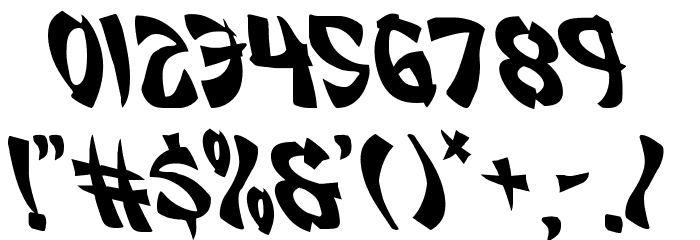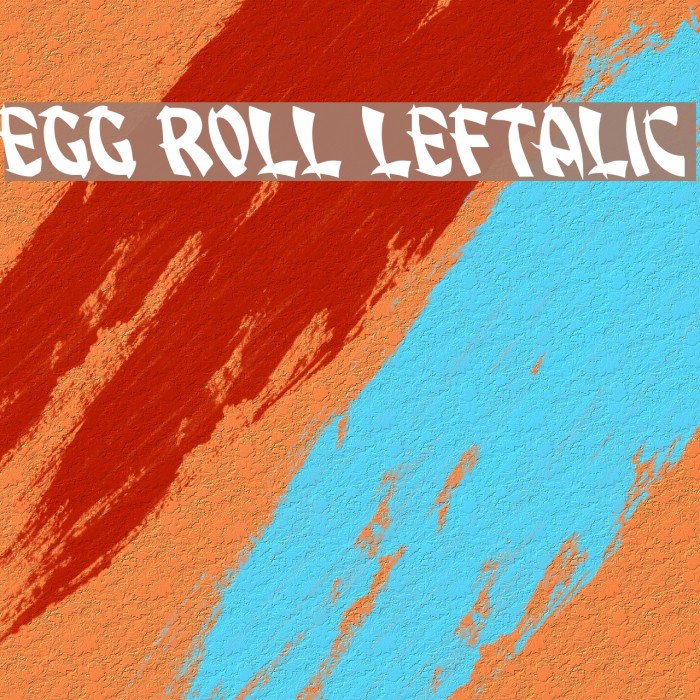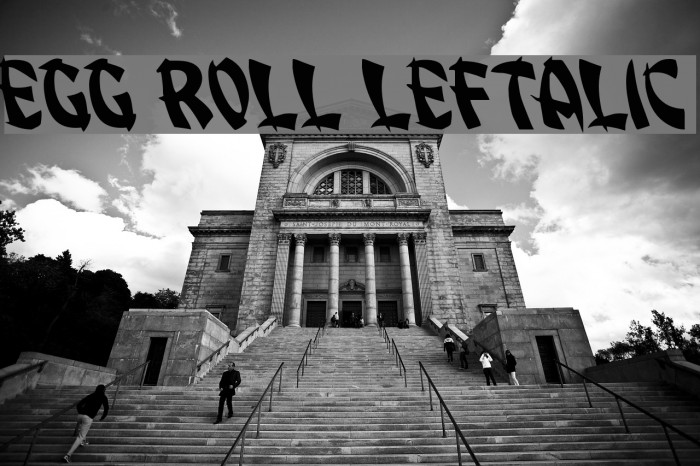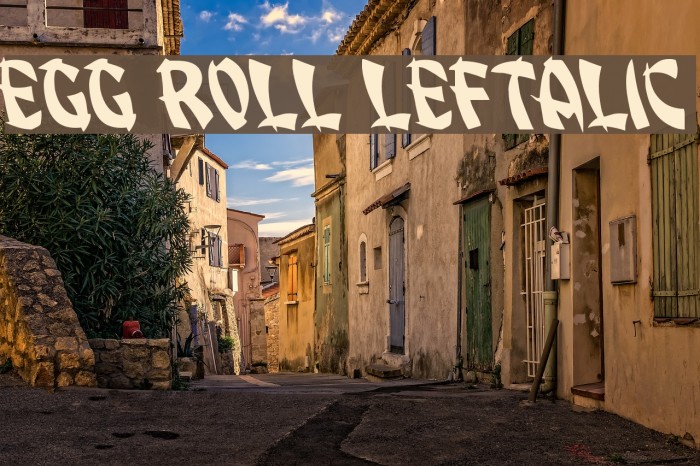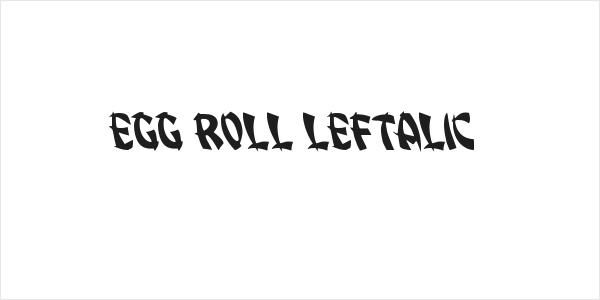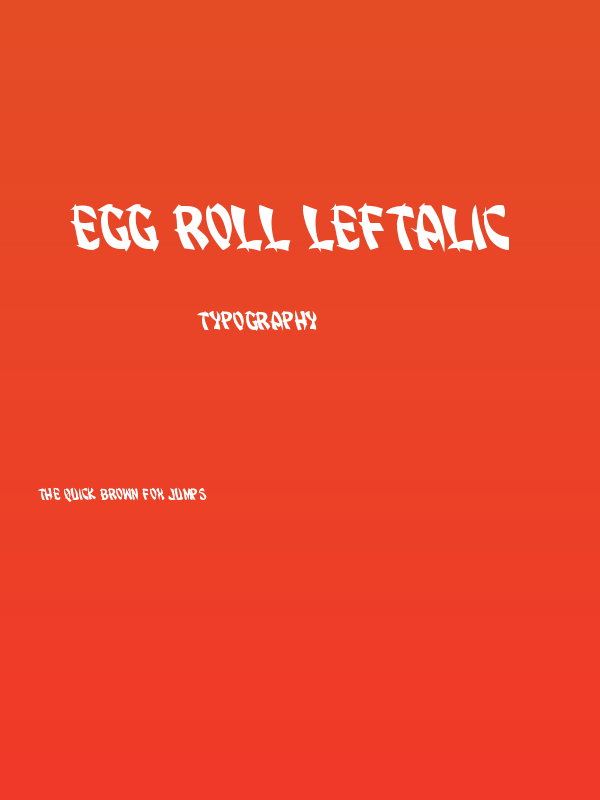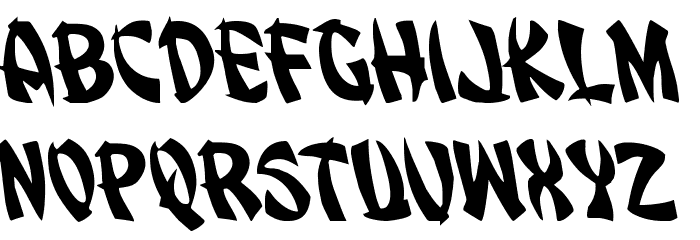
Egg Roll Leftalic Font
Egg Roll Leftalic Description
This font features a bold and dynamic style with a playful, energetic feel. The characters are heavily stylized, with exaggerated curves and sharp angles that create a sense of movement and excitement. The letters are slightly slanted, adding to the dynamic appearance, and the strokes are thick, providing a strong visual impact. This font is highly decorative, making it suitable for eye-catching designs. The spacing between characters is tight, enhancing the compact and bold look. The overall style is modern and artistic, perfect for creative projects that require a standout typeface.
| Proposed Projects | Ideal for posters, album covers, event flyers, and any project needing a bold, artistic touch. |